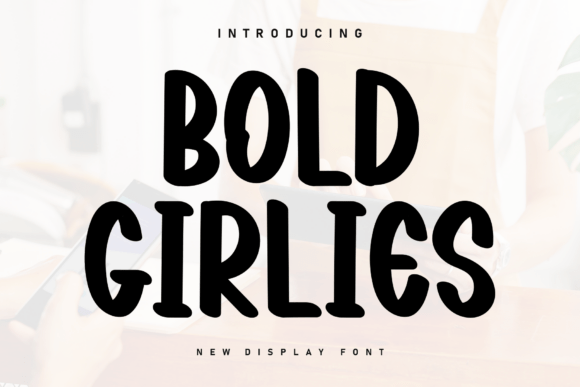
The Bold Girlies Font: A Charming Handwritten Delight
I’ll never forget the time I was working on a branding project for a small business, and I just couldn’t find the right font to capture their playful yet sophisticated vibe. That’s when I stumbled upon the Bold Girlies font, and it instantly became the perfect fit. In this article, I’ll share my love for this charming handwritten font, its features, and how to make the most of it in your design projects.
A Personal Review: What I Love About Bold Girlies
The Bold Girlies font has won my heart with its smooth strokes and organic lines that evoke a relaxed atmosphere. Here are some things I love about it:
• ✨ Heartfelt perfection: The font’s charming and whimsical feel makes it perfect for designs that require a personal touch.
• ✅ Versatility: Bold Girlies works well for a variety of design projects, from branding and invitations to social media graphics.
• 💕 Emotional connection: The font’s handmade feel creates an instant emotional connection with the audience, making it ideal for designs that require a personal touch.
While I adore the Bold Girlies font, there are a few things to keep in mind:
• 🤔 Limited use in formal designs: Due to its playful nature, Bold Girlies might not be the best fit for formal or corporate designs.
• ⚠️ Legibility at small sizes: As with many handwritten fonts, Bold Girlies may lose legibility when used at very small sizes.
The Designer Inspiration Behind Bold Girlies
The Bold Girlies font was created with the intention of capturing the essence of a warm, handwritten note. The designer aimed to create a font that would evoke feelings of comfort and approachability, making it perfect for designs that require a personal touch.
What is the Bold Girlies font best used for? The Bold Girlies font is perfect for designs that require a personal touch, such as branding, invitations, and social media graphics.
Is the Bold Girlies font suitable for formal designs? No, due to its playful nature, Bold Girlies might not be the best fit for formal or corporate designs.
Does the Bold Girlies font support OpenType features? Yes, the Bold Girlies font supports OpenType features like ligatures and stylistic alternates.